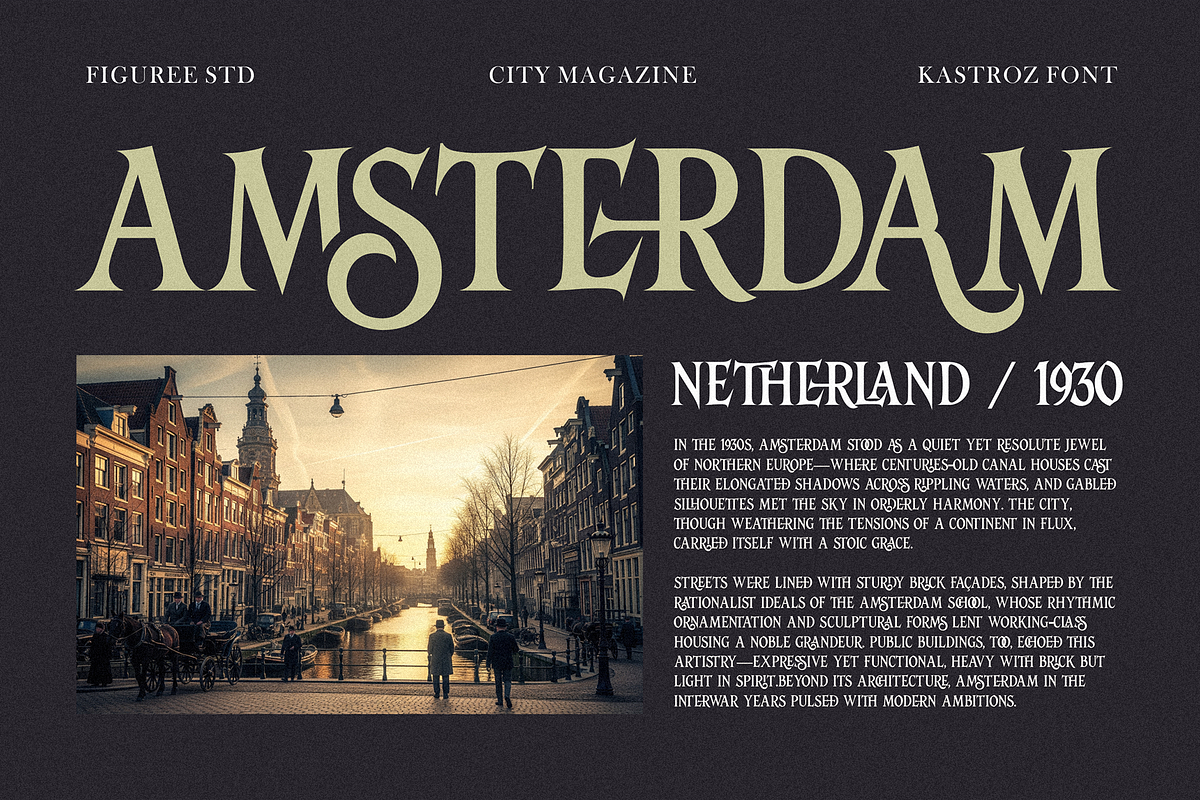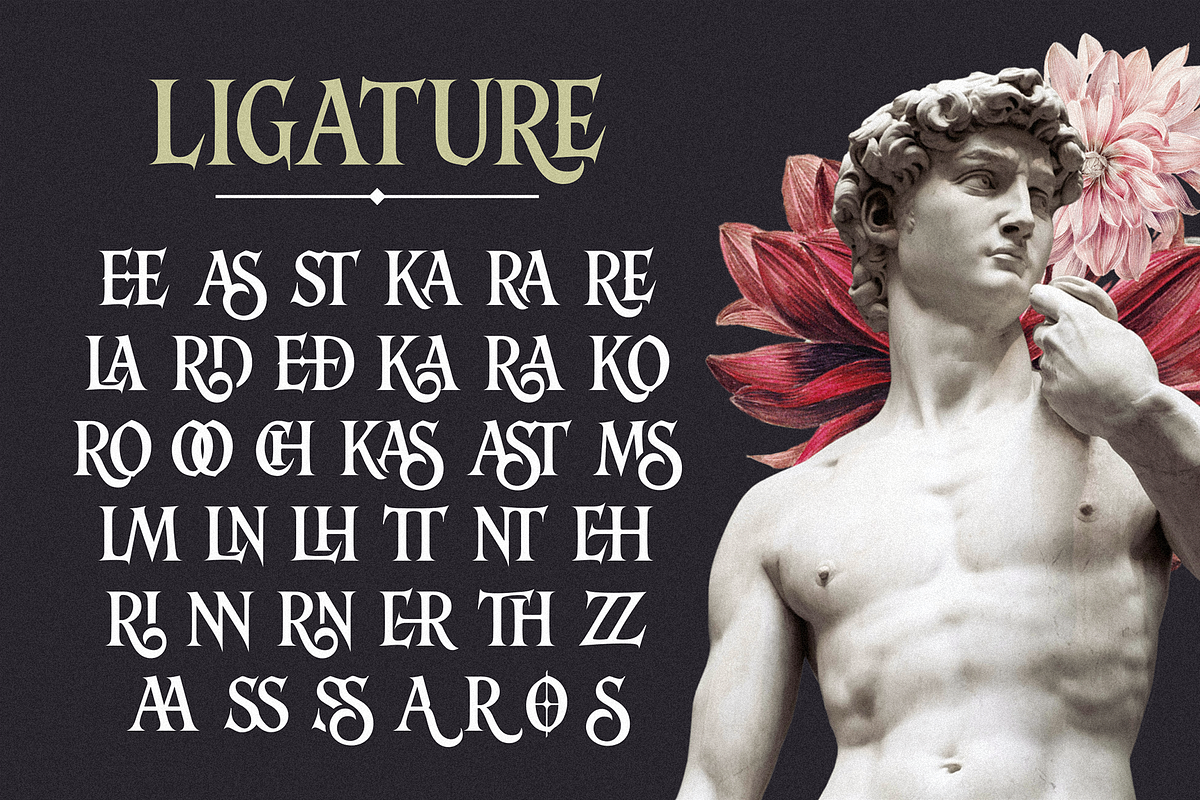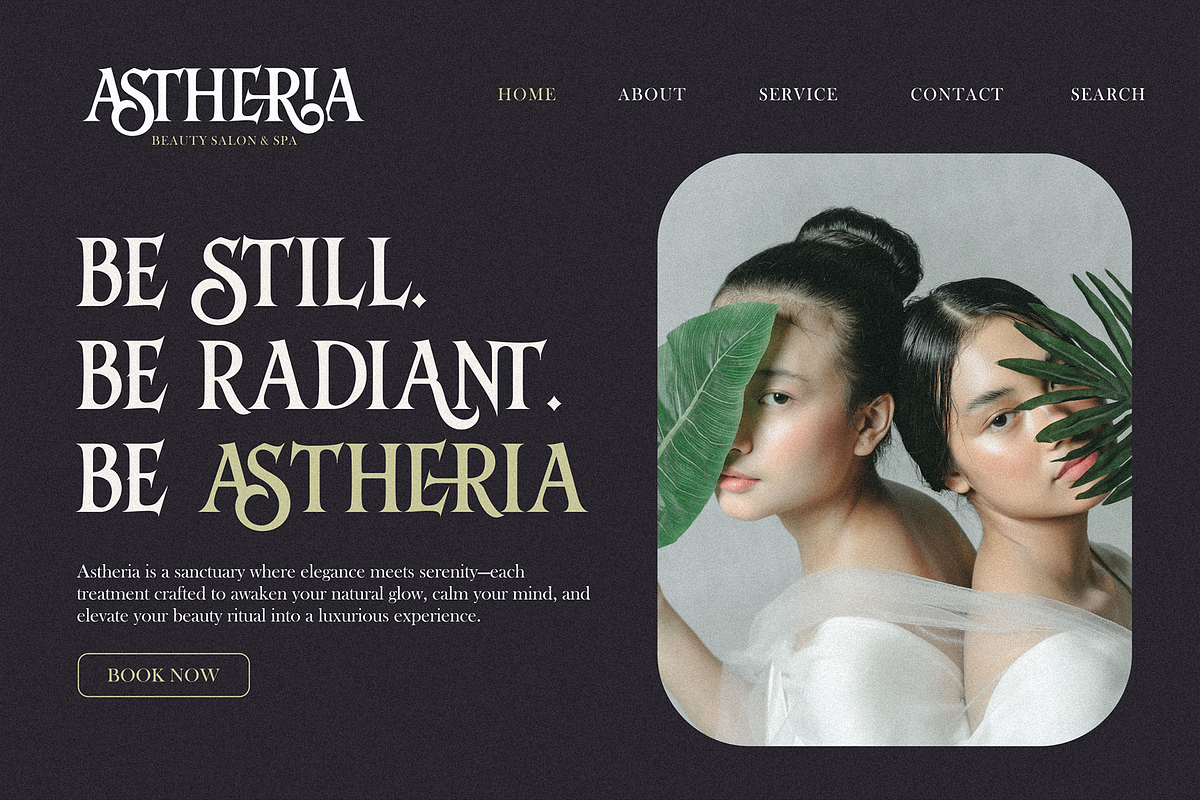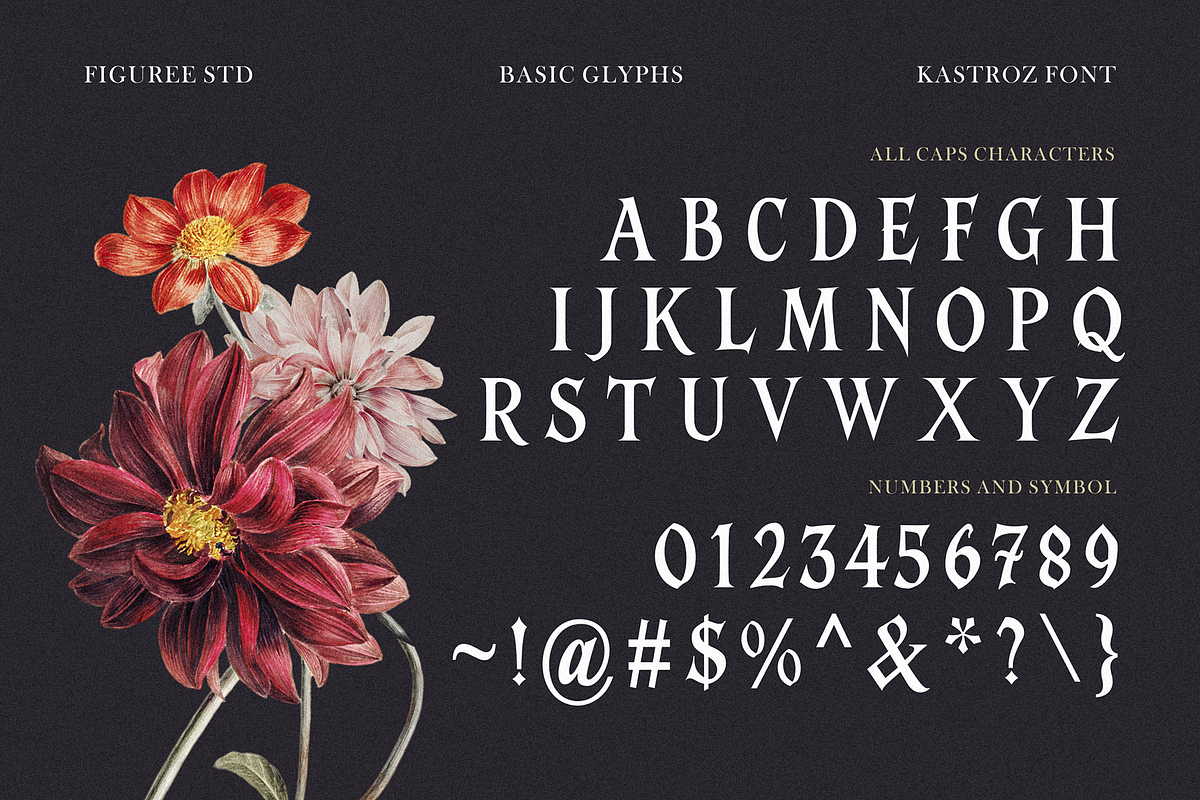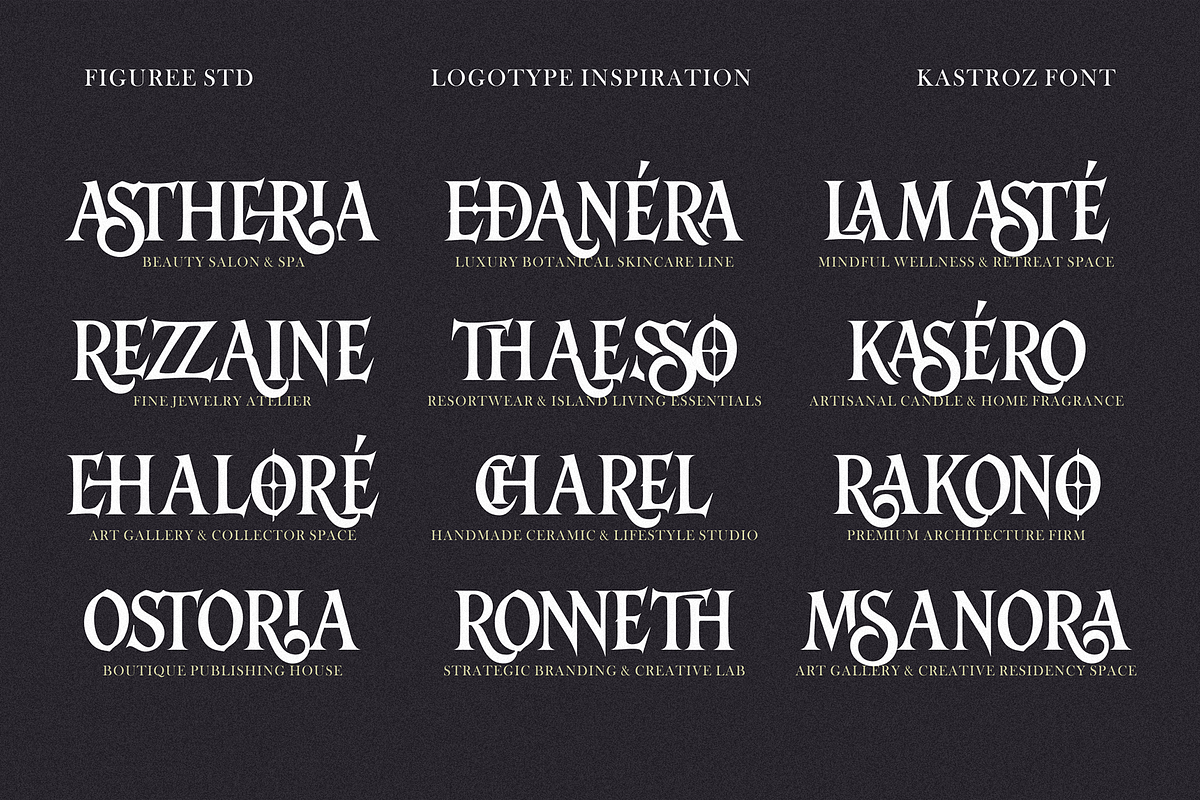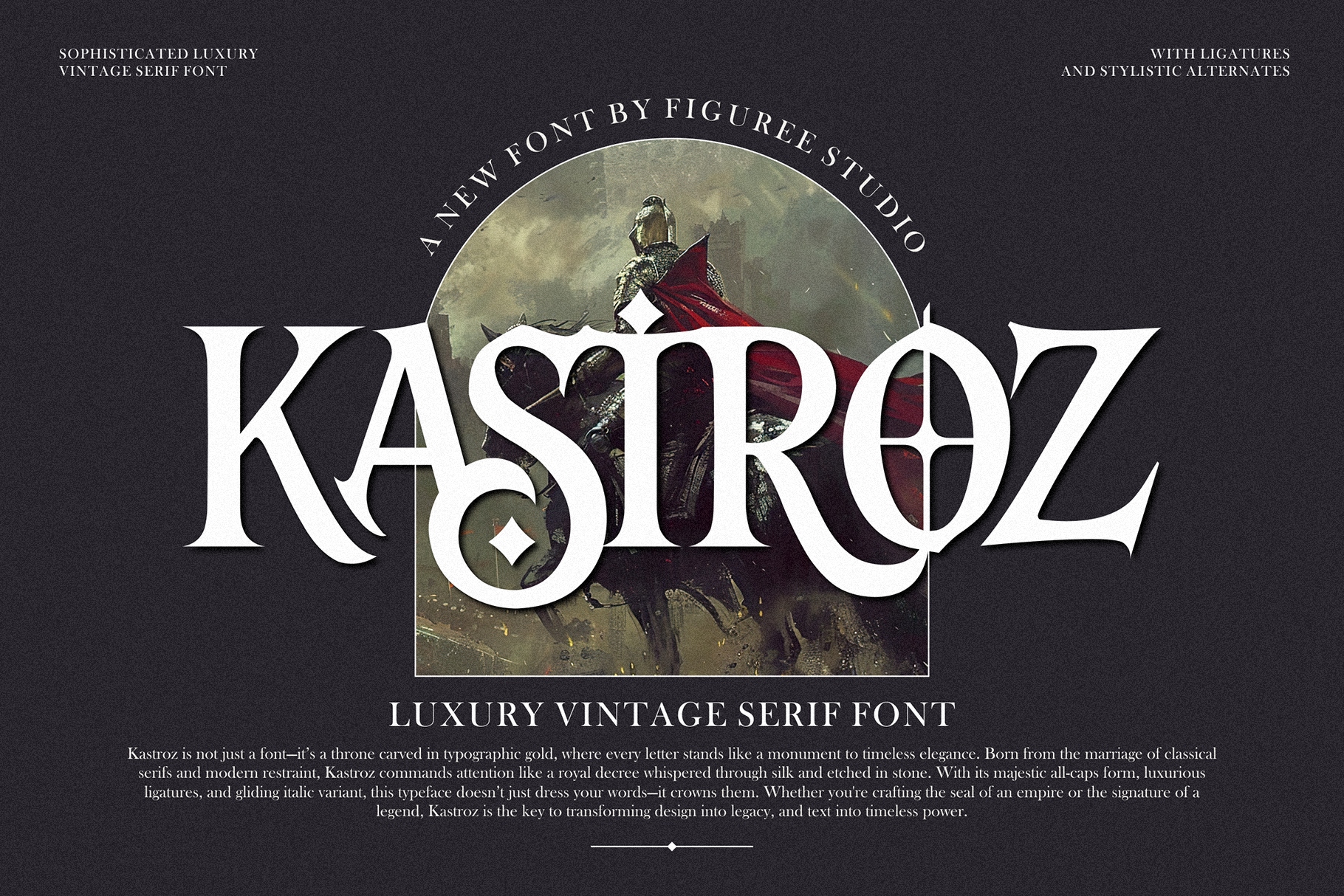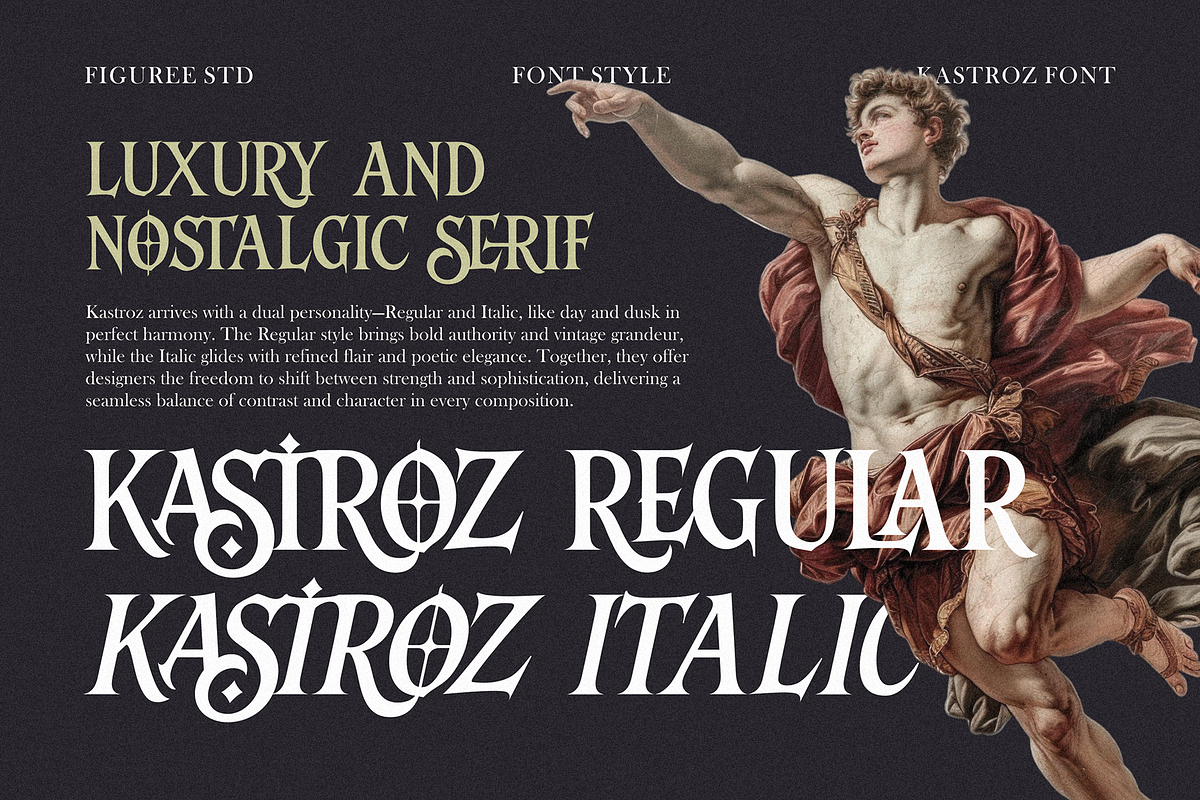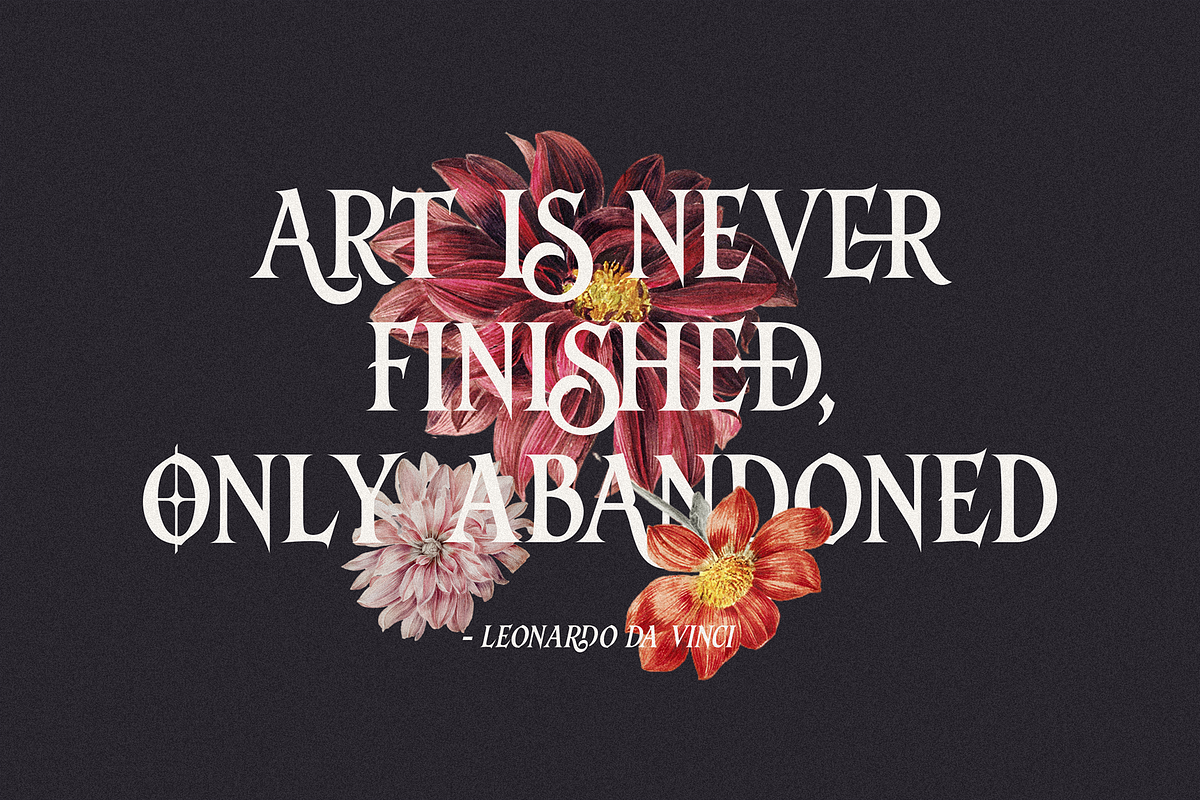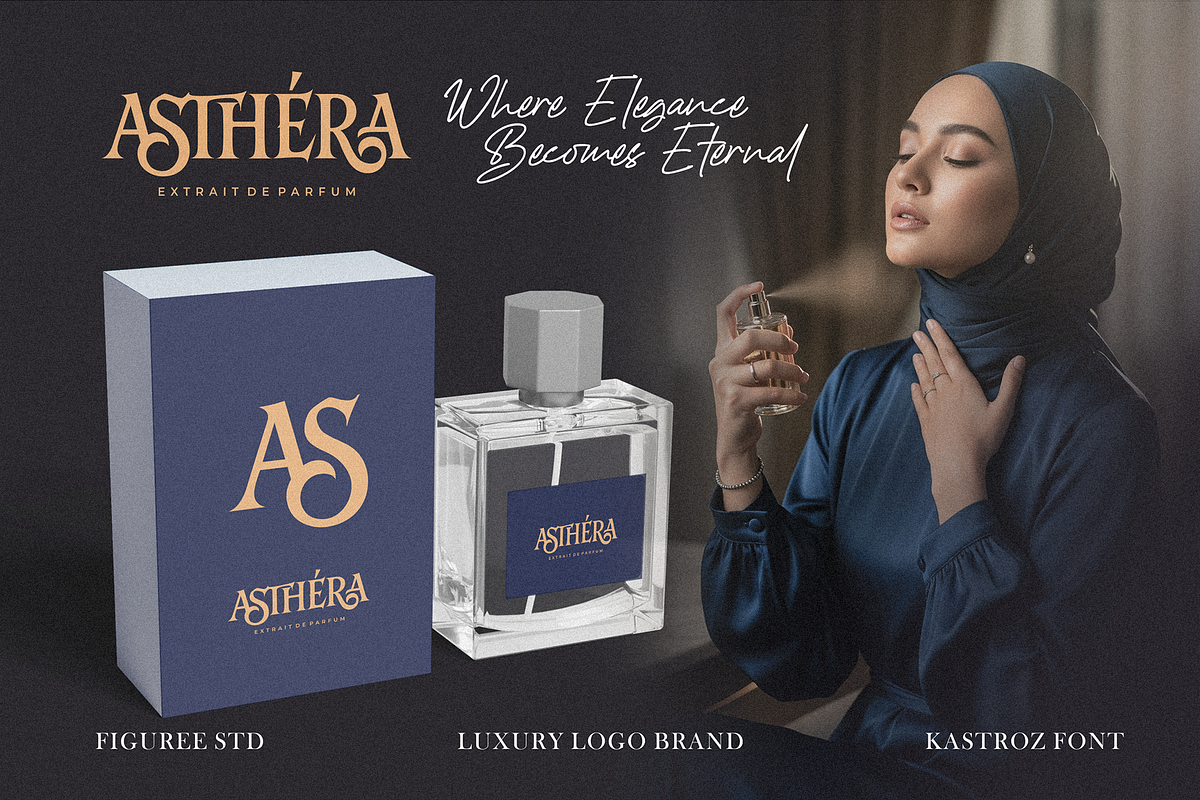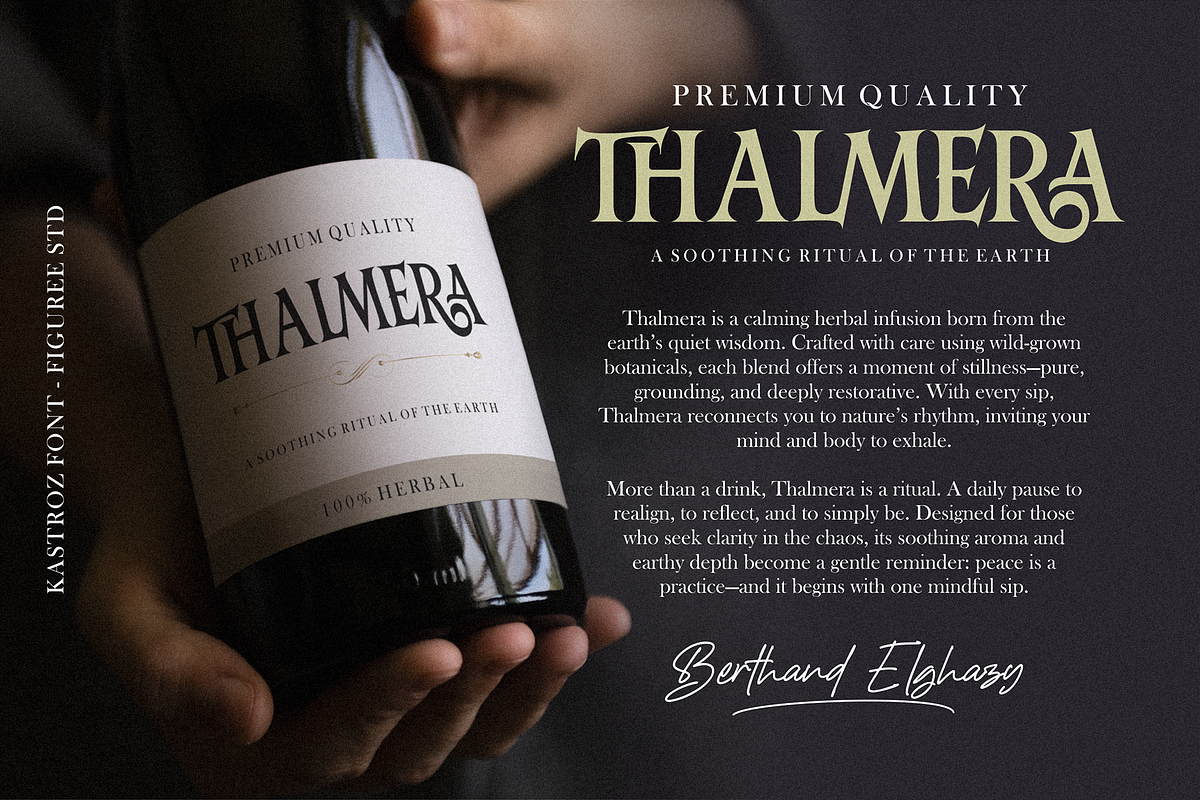
Kastroz – Luxury Vintage Serif Font
Kastroz is a high-impact luxury vintage serif font designed to elevate your typography with timeless elegance and bold precision. Featuring all-caps characters and unique ligatures, Kastroz brings refined detail and strong presence to logos, packaging, editorial layouts, and brand identities that demand sophistication.
Whether you're crafting a premium label, designing book covers, or building an upscale visual identity, Kastroz delivers a perfect blend of vintage serif charm and modern elegance. Its carefully balanced proportions make it the ideal serif font for logos, headlines, and high-end branding projects.
- All-Caps Luxury Vintage Serif Typeface
- Includes Regular & Italic Styles
- Beautiful Ligatures for Signature Styling
- Multilingual Support (Latin Extended)
- Clean, Elegant, and Versatile Layouts
- Perfect for Branding, Logos, Editorial, Packaging & More
Why Designers Love It: Designers love Kastroz for its perfect mix of classic serif elegance and strong contemporary edge. The stylish ligatures offer elegant custom branding opportunities, while the bold all-caps structure ensures strong visual hierarchy. Whether used in minimalist layouts or ornate compositions, Kastroz stands out as a trusted serif font for luxury branding and design storytelling.
Refined, Powerful, and Timeless Kastroz is more than just a typeface—it’s a visual signature. Designed for creators who value heritage, elegance, and expression, this luxury serif font makes every design look established, iconic, and intentional. If you're ready to elevate your work with character and class, Kastroz is your new essential.